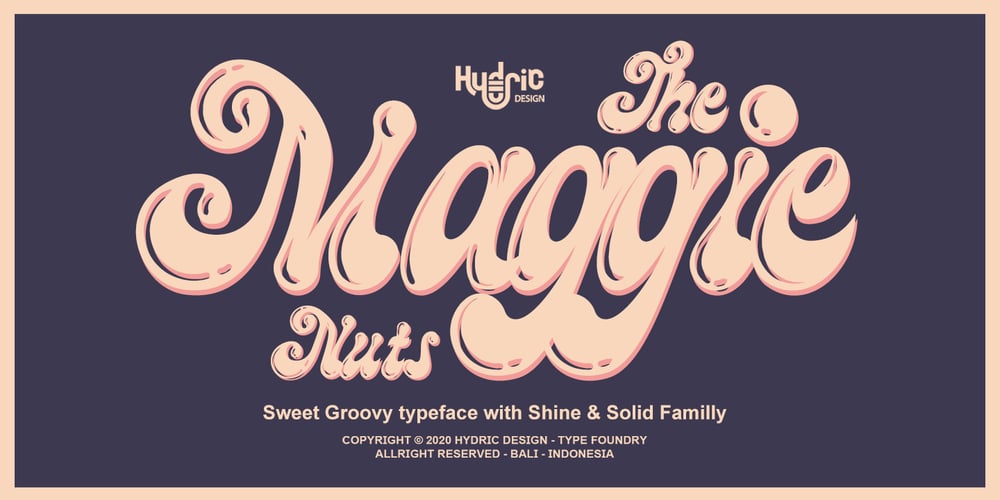
The Maggie Nut
The Maggie Nut font
The Maggie Nut Font Family was designed by Hery Setyadarmawan and published by Hydric Design. The Maggie Nut contains 2 styles and family package options. The Maggie Nut is a font with a retro style made to make your designs look more attractive. The Maggie Nut has 2 styles, namely Light (shining) and Regular, It will be very easy to use and will save you time on designing. The Maggie Nut also has many opentype features such as ligature, and alternate. This will be very suitable for use as a logo, poster, packaging, merchandise, social media & greeting cards.